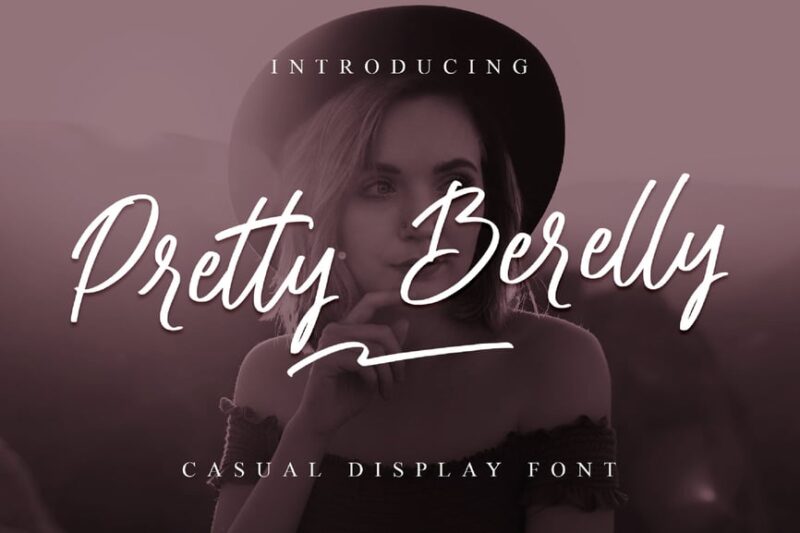
Beauty is in the eye of the beholder, but when it comes to typography, some fonts just have that undeniable “wow factor.” You know the ones – those typefaces that make you stop scrolling, lean in closer, and whisper “that’s gorgeous” under your breath.
Pretty fonts are the secret sauce that transforms ordinary text into visual poetry. They’re the difference between a design that gets ignored and one that gets shared, saved, and remembered. Whether you’re crafting wedding invitations, designing a luxury brand, or simply want your social media posts to shine brighter than your competition, the right pretty font can elevate your work from mundane to magnificent.
In this comprehensive guide, we’ll explore the most stunning pretty fonts available in 2026, decode what makes a font truly beautiful, and show you exactly how to use these typographic treasures in your own projects. So grab your favorite beverage, settle in, and let’s embark on a journey through the world of gorgeous typography!
The Most Drop-Dead Gorgeous Pretty Fonts of 2026
Let’s dive straight into the cream of the crop – the fonts that are making designers everywhere weak in the knees. These aren’t just pretty faces; they’re versatile, well-crafted typefaces that bring elegance and sophistication to any project.
Charming and Beautiful Font
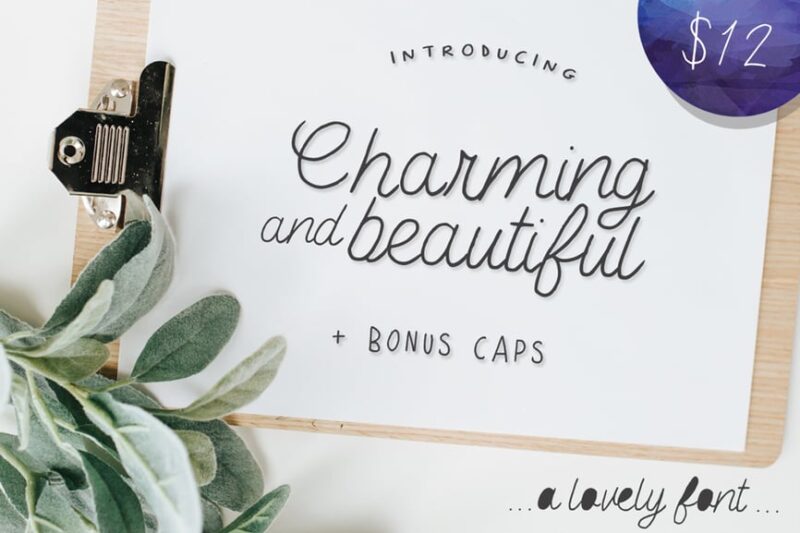
This pretty font combines script and handwritten styles for a charming, monoline look. Ideal for designers seeking cute and logo-friendly typefaces, it’s a versatile choice for projects that require a touch of beauty and elegance.
Pretty Smile
Pretty Smile is a lovely script font that embodies elegance and fluidity. This beautiful typeface is perfect for designers looking to add a touch of calligraphy to their projects, making it an excellent choice for wedding invitations, greeting cards, and other pretty designs.
Lucky Beauty
Lucky Beauty is a styled, classy serif font with a boho-chic flair. This pretty typeface combines elegance with a touch of whimsy, making it perfect for designers seeking a font that balances sophistication and free-spirited charm in their projects.
Milky Honey
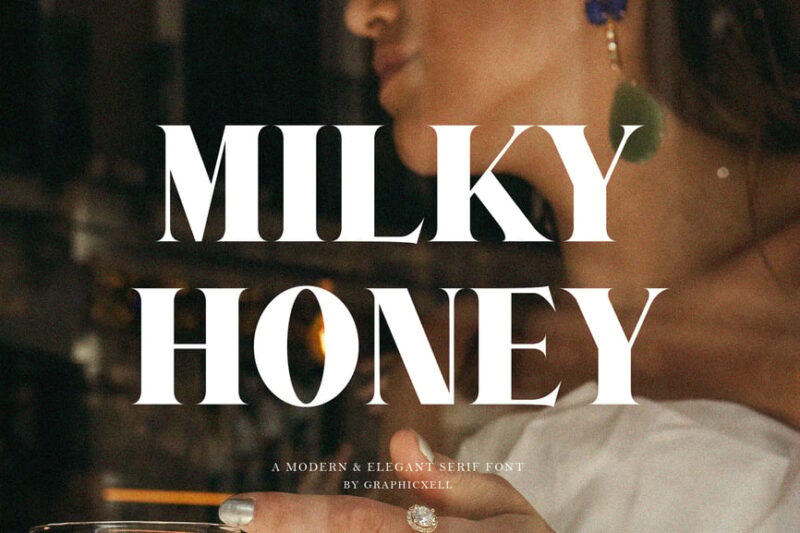
Milky Honey is an elegant, classic serif font that exudes sophistication. This pretty typeface is perfect for designers looking to add a touch of timeless beauty to their projects, from luxury branding to high-end editorial layouts.
Cutie Sugary
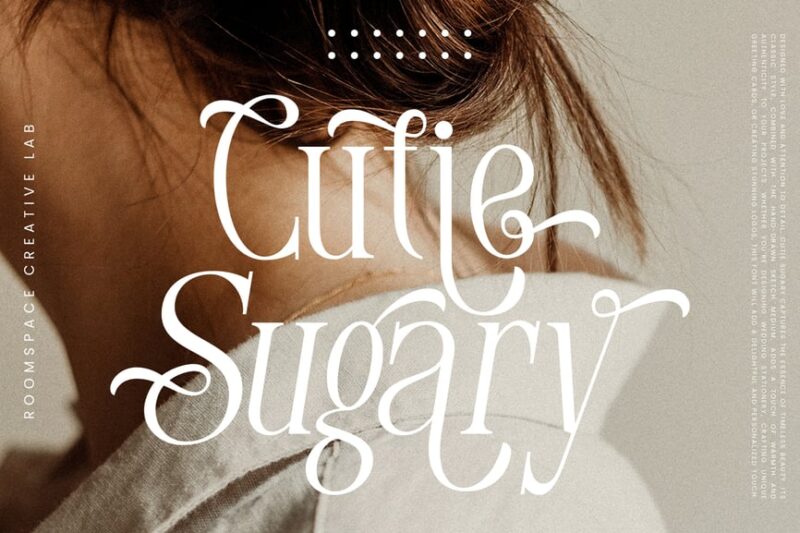
Cutie Sugary is a lovely, feminine serif font designed with women in mind. This pretty typeface strikes a balance between elegance and playfulness, making it ideal for designers working on stylish, female-oriented projects such as beauty blogs or fashion magazines.
Pretty Holiday
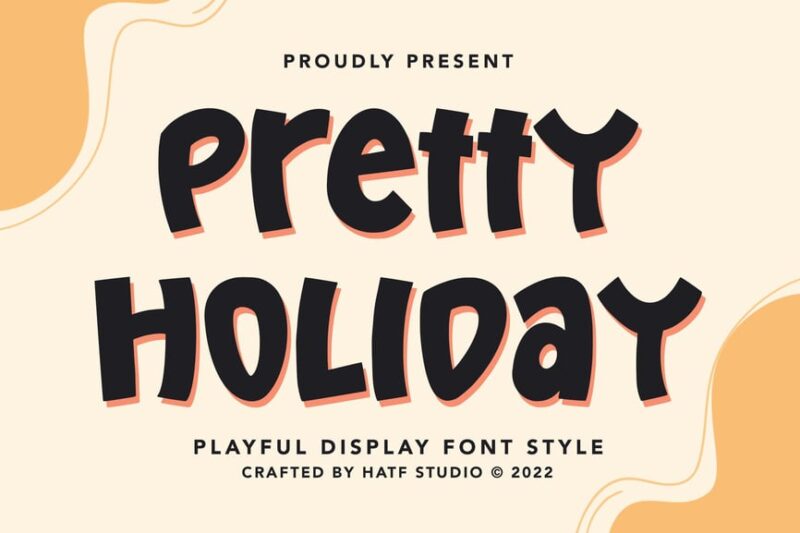
Pretty Holiday is a decorative script font that brings a festive touch to designs. This charming typeface is perfect for creating beautiful holiday-themed projects, from calendars to comic-style illustrations, adding a whimsical and pretty element to seasonal designs.
Beauty Barbiees
Beauty Barbiees is a script font that embodies love and beauty. This pretty typeface is perfect for designers working on projects that require a touch of feminine charm and elegance, such as cosmetic branding or romantic-themed designs.
Silky Candy
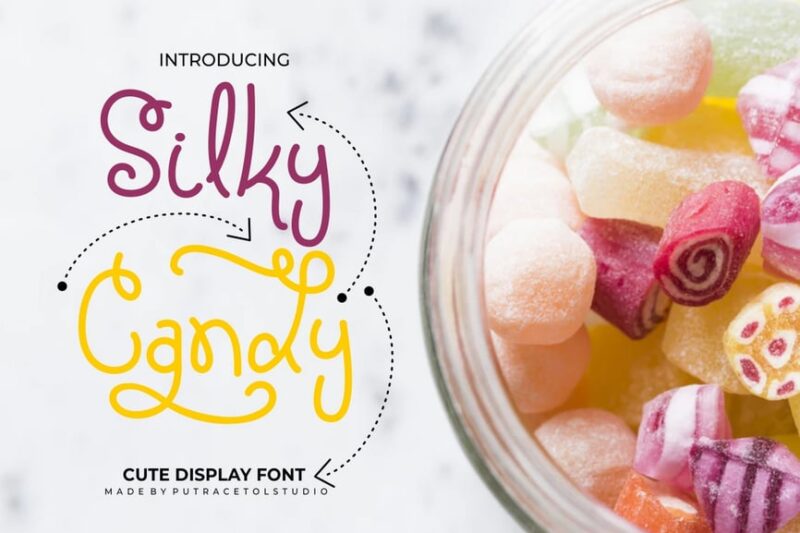
Silky Candy is a cute, sweet decorative font that lives up to its name. This pretty typeface is perfect for designers looking to add a touch of whimsy to their projects, especially those related to confectionery or chocolate-themed designs.
Pretty Yellow Beauty Calligraphy Font
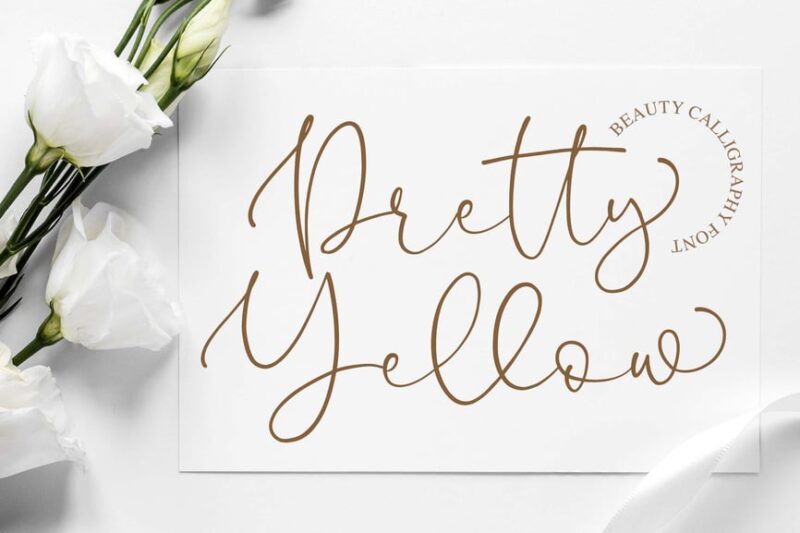
This beautiful calligraphy font combines elegance with a touch of sunny charm. Perfect for designers seeking a pretty, handwritten style, it adds a graceful and personal touch to various projects, from invitations to branding materials.
Beautimy
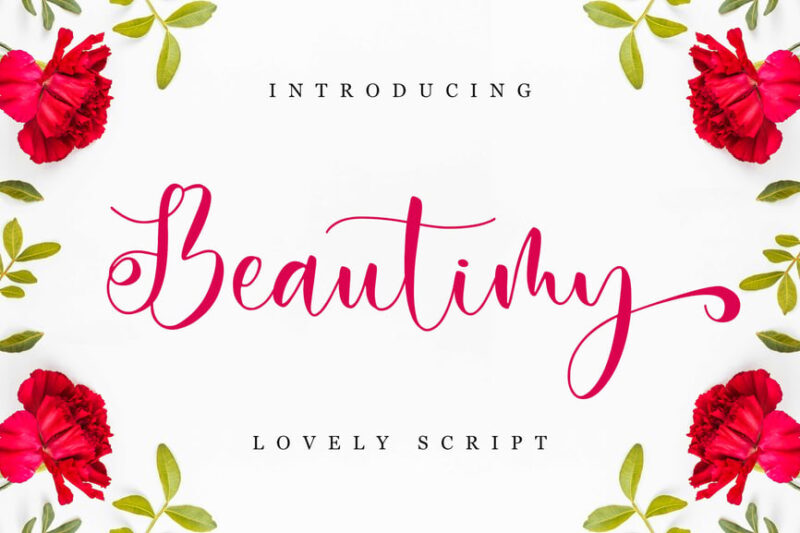
Beautimy is a lovely script font that exudes romance and elegance. This pretty typeface is ideal for designers working on wedding-related projects or any design that requires a touch of sophisticated beauty and charm.
Sweetheart
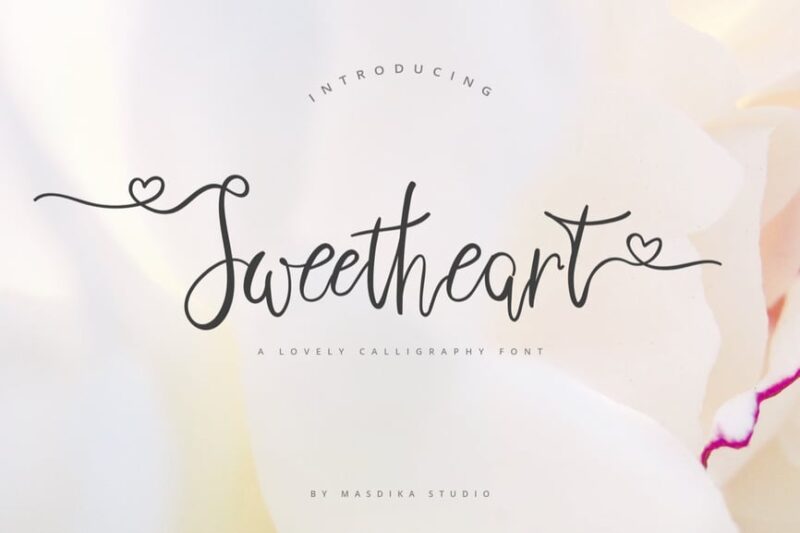
Sweetheart is a script font that combines feminine charm with floral elegance. This pretty typeface is perfect for designers looking to add a touch of romance and natural beauty to their projects, from greeting cards to botanical-themed designs.
Habela Beauty Modern Elegant
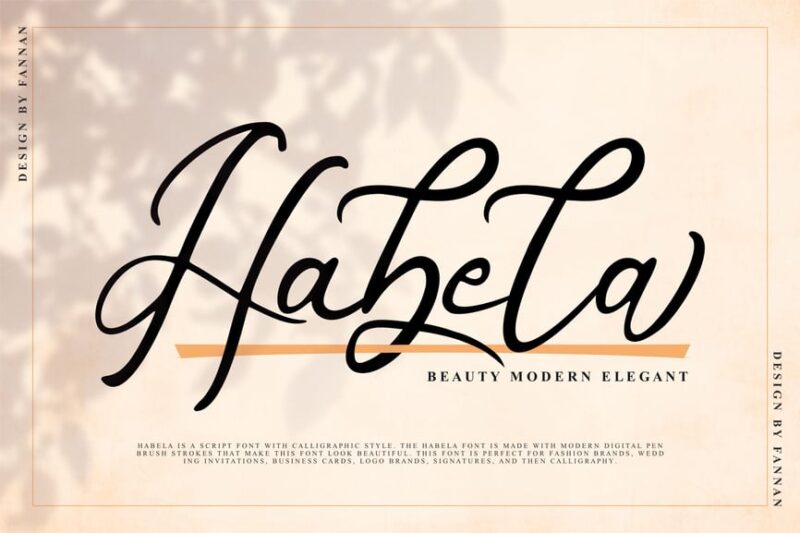
Habela Beauty is a modern, elegant signature font that embodies contemporary sophistication. This pretty typeface is ideal for designers seeking a beautiful, up-to-date handwritten style for their projects, from fashion branding to lifestyle publications.
As you embark on your own typographic adventures, keep in mind that beauty is just the beginning. The most successful pretty fonts are those that combine aesthetic appeal with functional excellence, creating designs that are both gorgeous and effective.
So go forth and create something beautiful. Your audience is waiting to be wowed, and with the right pretty font by your side, you’re ready to deliver typography that truly dazzles.